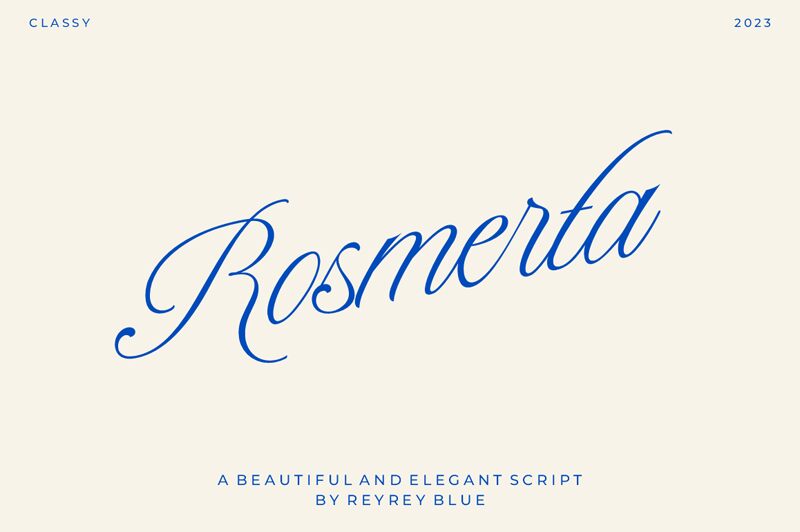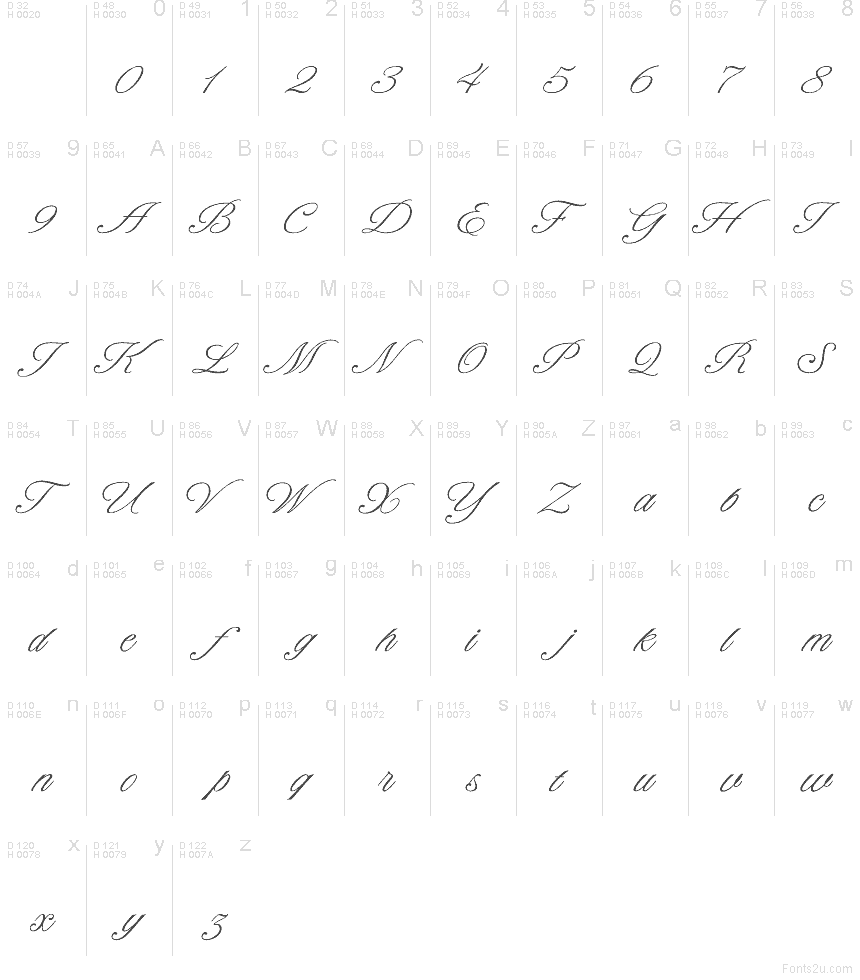
Rosmerta
Rosmerta font by ReyreyBlue is a free calligraphy typeface with long, sweeping strokes and hairline curves that feel like they were drawn in one effortless breath. Its letters lean gracefully forward, with delicate loops and tight connections that give every word a sense of motion and romance. The overall texture is fine and inky, like a fountain pen gliding across smooth paper, making even short phrases look luxurious and intentional.
Using Rosmerta, you can add an elegant handwritten signature to wedding invitations, event stationery, boutique logos, perfume or cosmetics packaging, greeting cards, and refined social media graphics. This free font shines when set large, letting the loops and swashes breathe; pair it with a clean, minimal sans serif for supporting text to keep layouts balanced and readable.